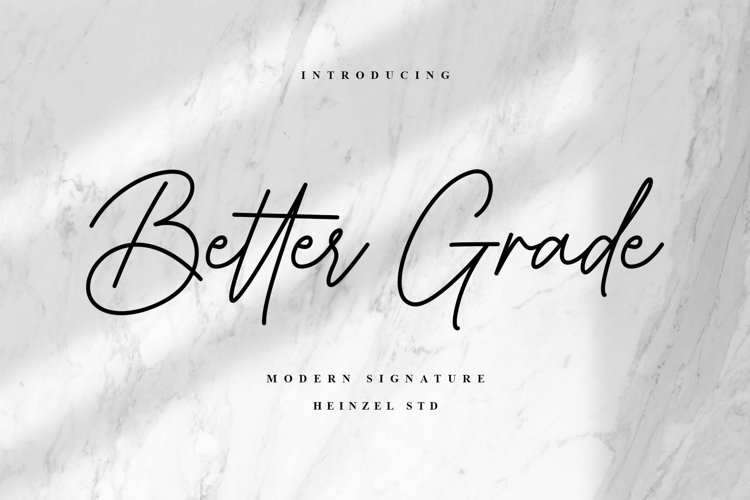
Better Grade - Modern Script Font / Best Seller Font
Better Grade
BEST SELLER SCRIPT FONT
Better Grade is a fancy handwritten font, described by an elegant touch, perfect for your favorite projects. It looks stunning on wedding invitations, thank you cards, quotes, greeting cards, logos, business cards,social media design, marketing materials and every other design which needs a handwritten touch. Fall in love with its incredibly distinct and timeless style and use it to create spectacular designs!
Better Grade Features :
• Uppercase and Lowercase
• Numerical and Punctuation
• Multilingual Language